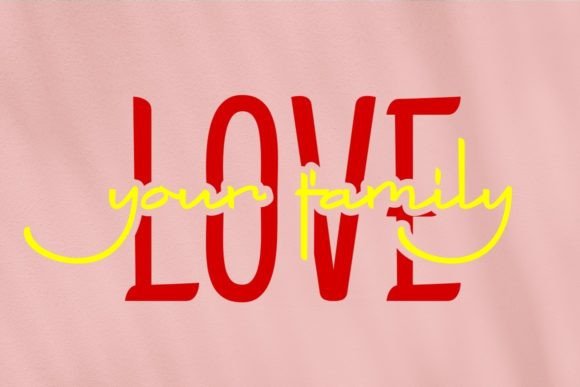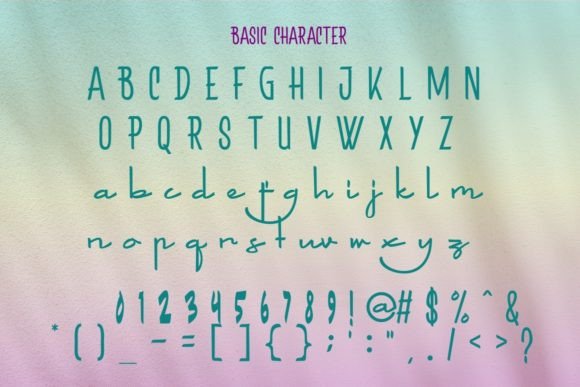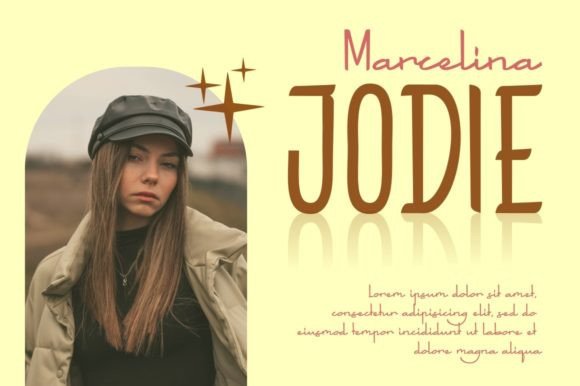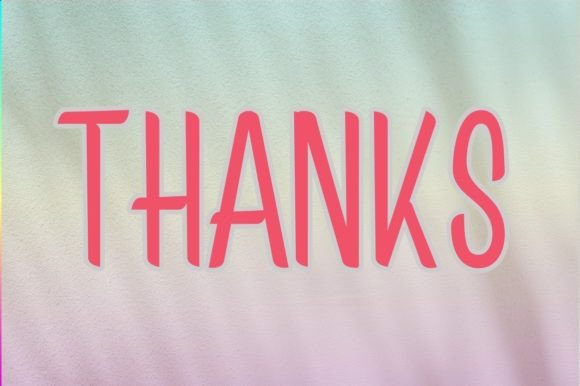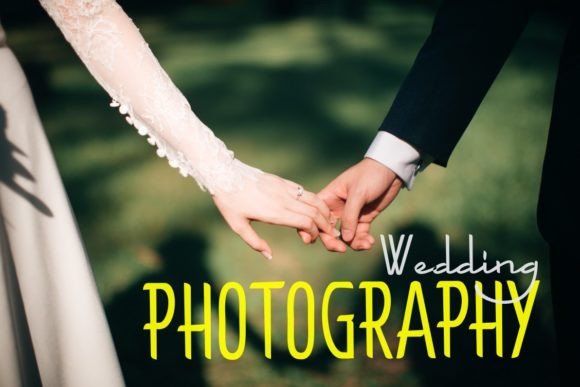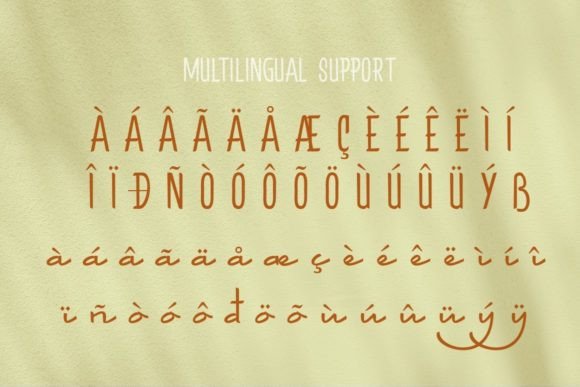
Introduction to Mark Quincy Font
Do you remember the moment when a beautiful font choice transformed your entire design project? Maybe it was a wedding invitation, a logo, or a social media post that stood out from the crowd. For designers, finding the perfect font can be a game-changer. It’s a moment of excitement and inspiration that can elevate a project from good to great. And today, we’re excited to introduce you to the Mark Quincy Font, a stunning handwritten font that’s perfect for creating high-quality designs.
This beautiful font is not just a pretty face; it’s a valuable design resource that can help you create stunning visual content for your creative projects. Whether you’re working on a modern website, designing wedding stationery, or creating eye-catching social media posts, the Mark Quincy Font is an excellent choice.
Key Features of Mark Quincy Font
- High-quality, elegant design suitable for creative projects, such as wedding invitations, greeting cards, and more.
- Unique characteristic: The Mark Quincy Font features a beautiful, cursive script style with subtle flair and elegance, making it perfect for adding a touch of sophistication to any design project.
Honest Review: Mark Quincy Font
As a designer, I’m always on the lookout for high-quality design resources that can elevate my creative projects. The Mark Quincy Font has caught my attention, and I’m excited to share my honest review with you.
- ✨ Unique and creative style that’s perfect for modern designs
- ✨ High-quality font with smooth lines and clear typography
- ⚠️ Limited font sizes and weights available (although the style is versatile enough to work with)
- ⚠️ May not be suitable for very formal or traditional designs
Overall, I’m impressed with the Mark Quincy Font. It’s a great addition to any designer’s toolkit, and I can see it working well in a variety of creative projects. If you’re looking for a unique and high-quality font, I’d definitely recommend giving it a try.
The Mark Quincy Font is ideal for a variety of creative projects, including:
- Graphic design and visual arts
- Print and digital publishing